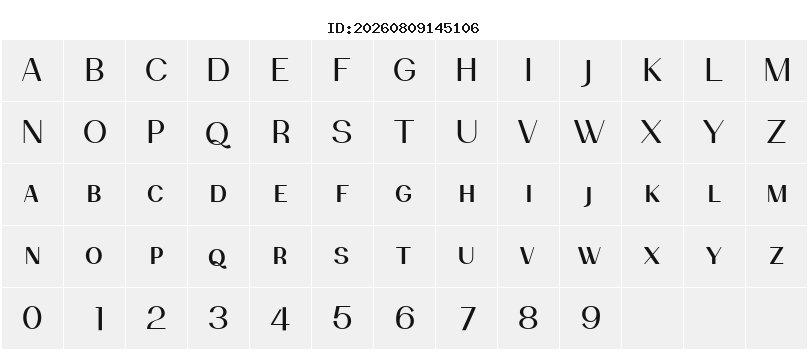
PassionSansPDbg Preview
• Font Name: PassionSansPDbg
• Font Style: RegularSmallCaps
• Font ID: 1.000;pyrs;PassionSansPDbg-RegularSmallCaps
• Full Font Name: PassionSansPDbg-RegularSmallCaps
• PostScript Name: PassionSansPDbg-RegularSmallCaps
• Character Count: 246
• Manufacturer: Prescott Design
About PassionSansPDbg.ttf
PassionSansPDbg.ttf is a modern, elegant sans-serif font designed for ultimate readability and visual harmony. Perfect for branding, headlines, web design, and print materials.